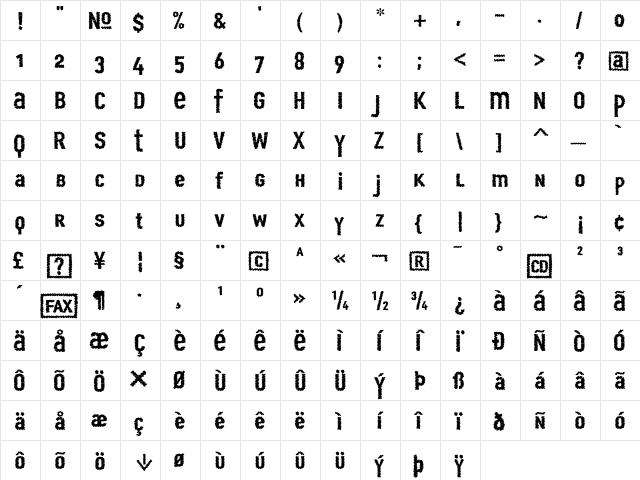
Scribble United
Design Context for Scribble Typeface
Scribble is a composed and adaptable typeface that performs quietly and consistently across a wide range of design contexts.
Pro Tip: Pair Scribble with a font of contrasting weight or personality to build a more expressive typographic hierarchy.